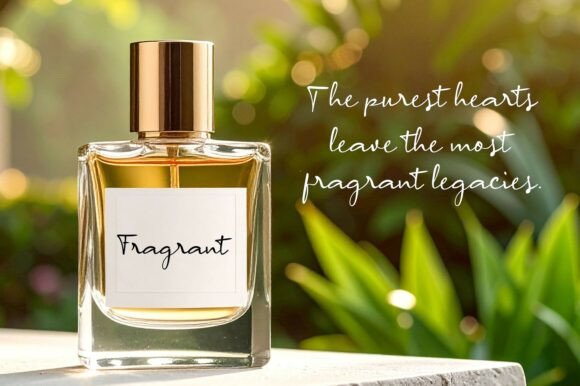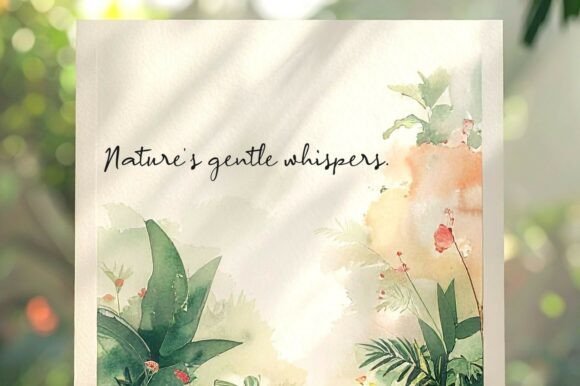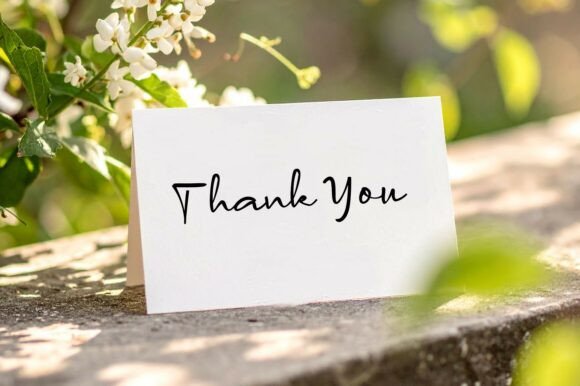
Introducing Arrange Signature: A Elegant Script Font for Refined Designs
Are you looking for a font that can add a touch of sophistication and elegance to your designs? Look no further than Arrange Signature, a beautiful script font that captures the delicate beauty of a personalized handwritten signature. This font features fluid, connected letterforms with a natural, unforced flow, as if penned with gentle precision.
The Characteristics of Arrange Signature
Arrange Signature is a meticulously designed font that boasts elegant curves and legible design, evoking a sense of refined artistry and organic charm. Its comprehensive set of uppercase and lowercase letters, numerals, and standard punctuation ensures that you have everything you need to create stunning designs. Each letterform is carefully crafted to maintain the font’s harmonious and artistic quality, making it perfect for conveying a sophisticated yet approachable message.
Ideal Uses for Arrange Signature
Arrange Signature is ideally suited for projects that require a touch of class, personalization, and a connection to nature. Some of the ideal uses for this font include:
- Luxury branding: Add a touch of elegance to your brand with Arrange Signature, perfect for high-end labels like the ‘Fragrant’ perfume label.
- Elegant stationery: Create beautiful and sophisticated stationery that reflects your personal style.
- Wedding invitations: Make your wedding invitations truly special with Arrange Signature, adding a touch of romance and elegance.
- Eco-friendly product packaging: Add a natural and organic feel to your eco-friendly product packaging with Arrange Signature.
- Creative works: Use Arrange Signature to add a gentle, heartfelt, and refined aesthetic to your creative works, such as art projects, illustrations, and more.
Why Choose Arrange Signature?
There are many reasons why Arrange Signature stands out from other script fonts. Here are just a few:
- Unique and elegant design: Arrange Signature features a unique and elegant design that is sure to make your designs stand out.
- Highly legible: The font’s legible design ensures that your text is easy to read, even at small sizes.
- Comprehensive character set: Arrange Signature includes a comprehensive set of uppercase and lowercase letters, numerals, and standard punctuation, giving you everything you need to create stunning designs.
- Versatile: Arrange Signature is versatile and can be used for a wide range of projects, from luxury branding to wedding invitations.
Tips for Using Arrange Signature
Here are a few tips for using Arrange Signature in your designs:
- Use it sparingly: Arrange Signature is a elegant font that can add a touch of sophistication to your designs. Use it sparingly to make a bigger impact.
- Pair it with other fonts: Arrange Signature pairs well with other fonts, such as sans-serif fonts. Experiment with different pairings to find the one that works best for your design.
- Adjust the size and color: Adjust the size and color of Arrange Signature to fit your design. A larger size can make a bold statement, while a smaller size can add a touch of elegance.
Arrange Signature is a beautiful script font that can add a touch of elegance and sophistication to your designs. With its unique and elegant design, highly legible characters, and comprehensive character set, it’s perfect for a wide range of projects. Whether you’re a designer or crafter, Arrange Signature is a great choice for anyone looking to create stunning designs that convey a sense of refined artistry and organic charm.